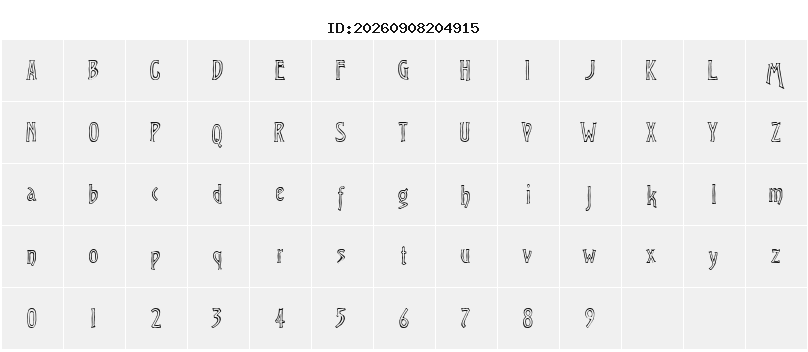
• Font Name: Virile Open
• Font Style: Open
• Full Font Name: Virile Open
About Virile Open.ttf
Virile Open.ttf is a modern, elegant sans-serif font designed for ultimate readability and visual harmony. Perfect for branding, headlines, web design, and print materials.